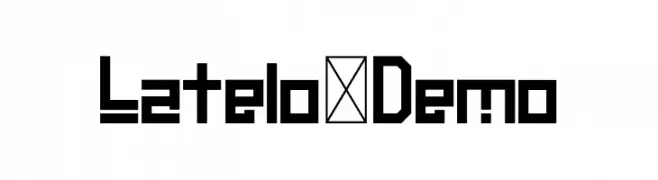
A bold, geometric font with a modern and futuristic style.
A bold, angular font with a modern and dynamic style.
A modern, geometric font with a sleek and minimalist design.